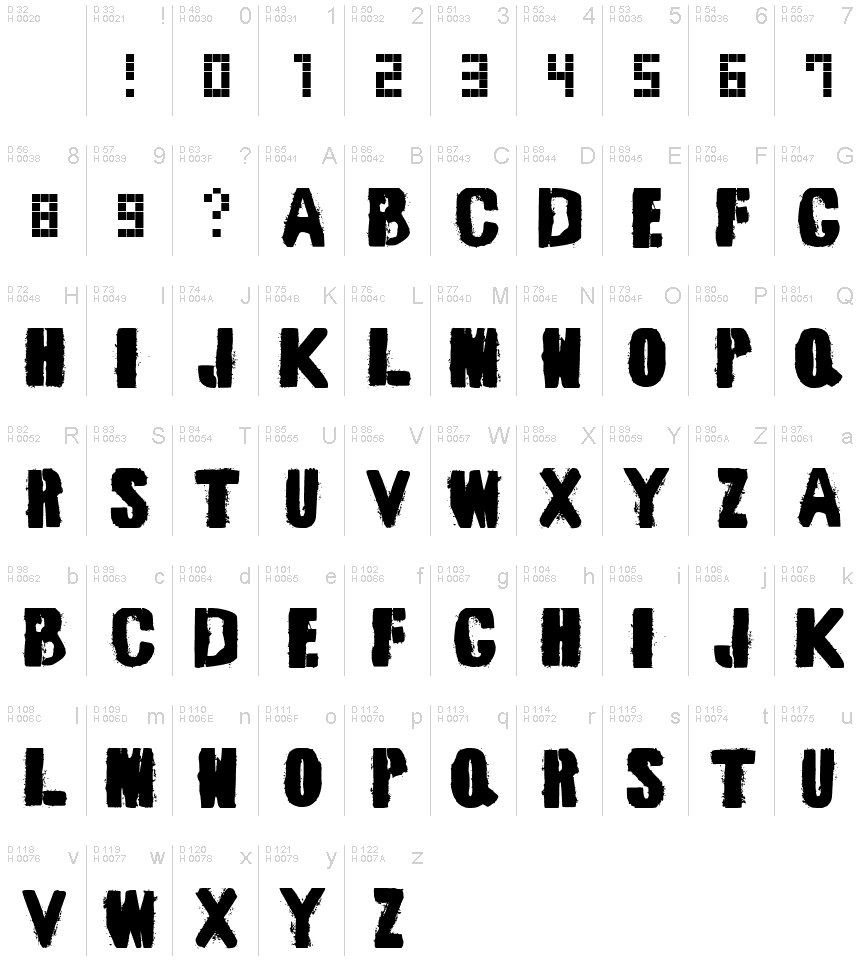
No More Hero V2 Regular
No More Hero, a bold eroded fancy font designed by Walgo Balgo, is perfect for posters, logos and other creative projects. Its narrow and unique style give it an edgy yet elegant look.